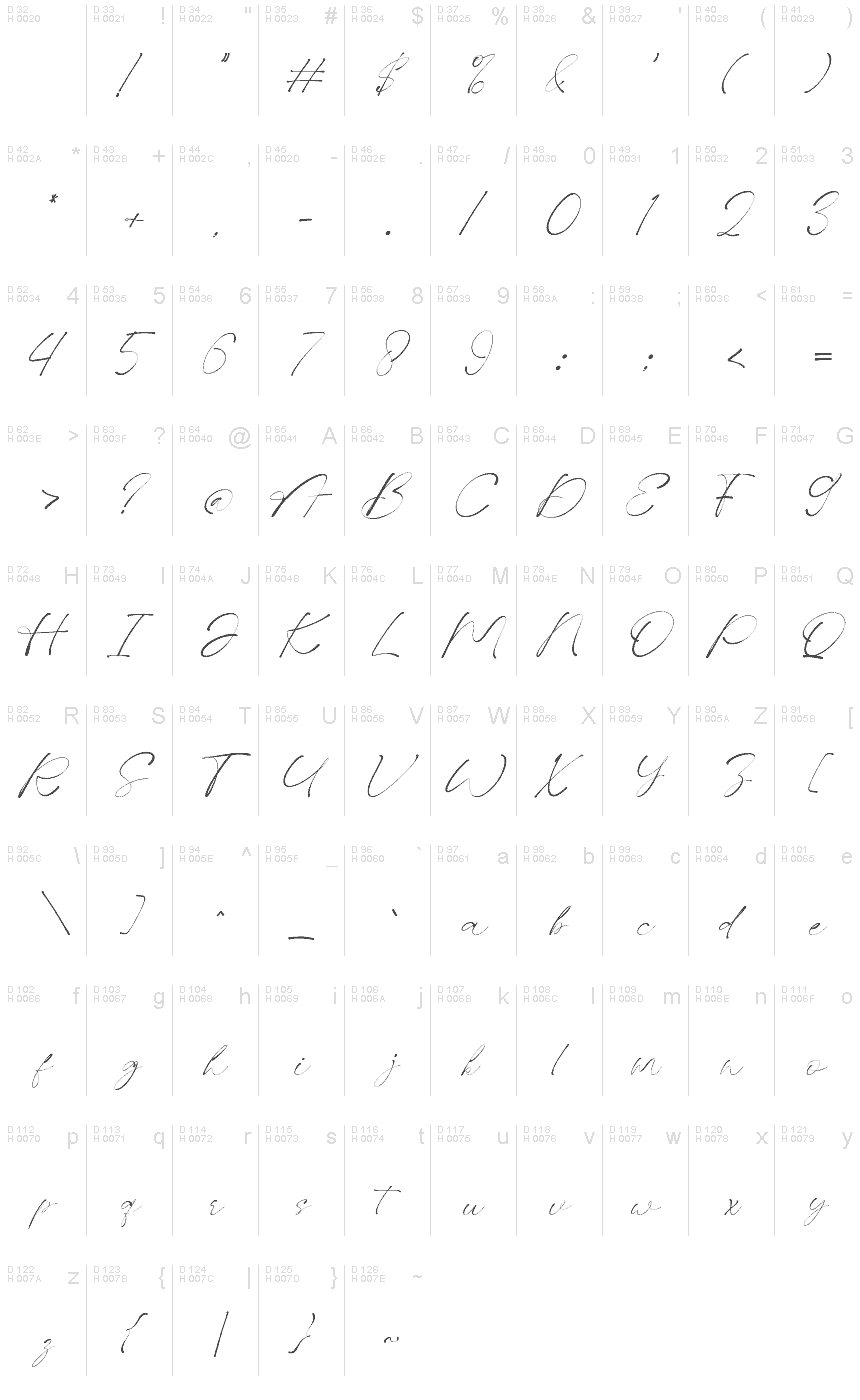
NCL Boquet Guides
NCL Boquet Guides font by Enxyclo Studio is a handwritten light font designed with elegance and sophistication. It has a flowy romantic style with an artistic flair in every stroke. Whether you’re after letter textures or smooth strokes, this free handwritten font presents both.
Use it for crafting classic projects like weddings, fashion-related concepts, logos, signage, and social media posts. Cards, invitations, postcards, brochures, booklets, branding/packaging presentations are other use ideas worth considering.